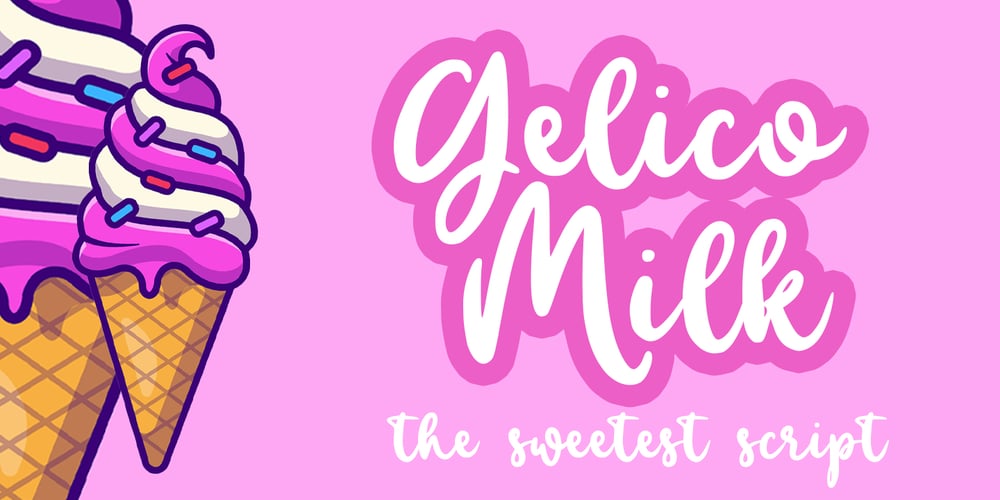
Gelico Milk Font Family was designed by Abo Daniel and published by Abo Daniel. Gelico Milk contains 1 styles and family package options. introducingGELICO MILK- The Sweetest Script -Gelico Milk is great for t-shirt design, stickers, tote bag design, cards, banners, branding, packaging, quotes, logo, signature, social media, and any projects.Features:- Uppercase- Lowercase- Number & Punctuation- Multilingual- Swash- PUA encodedI hope you love it.regards,Abo Daniel Studio